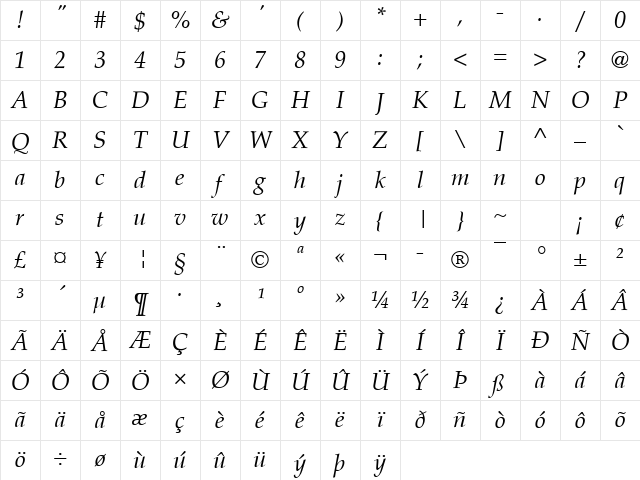
PaltusAntNo3LUN Italic
Design Context for PaltusAntNo3LUN
PaltusAntNo3LUN is a composed and adaptable typeface that performs quietly and consistently across a wide range of design contexts. The slanted form adds forward momentum and visual energy.
Pro Tip: Use PaltusAntNo3LUN for emphasis, pull quotes, and subheadings where its slanted energy can add rhythm to the layout.